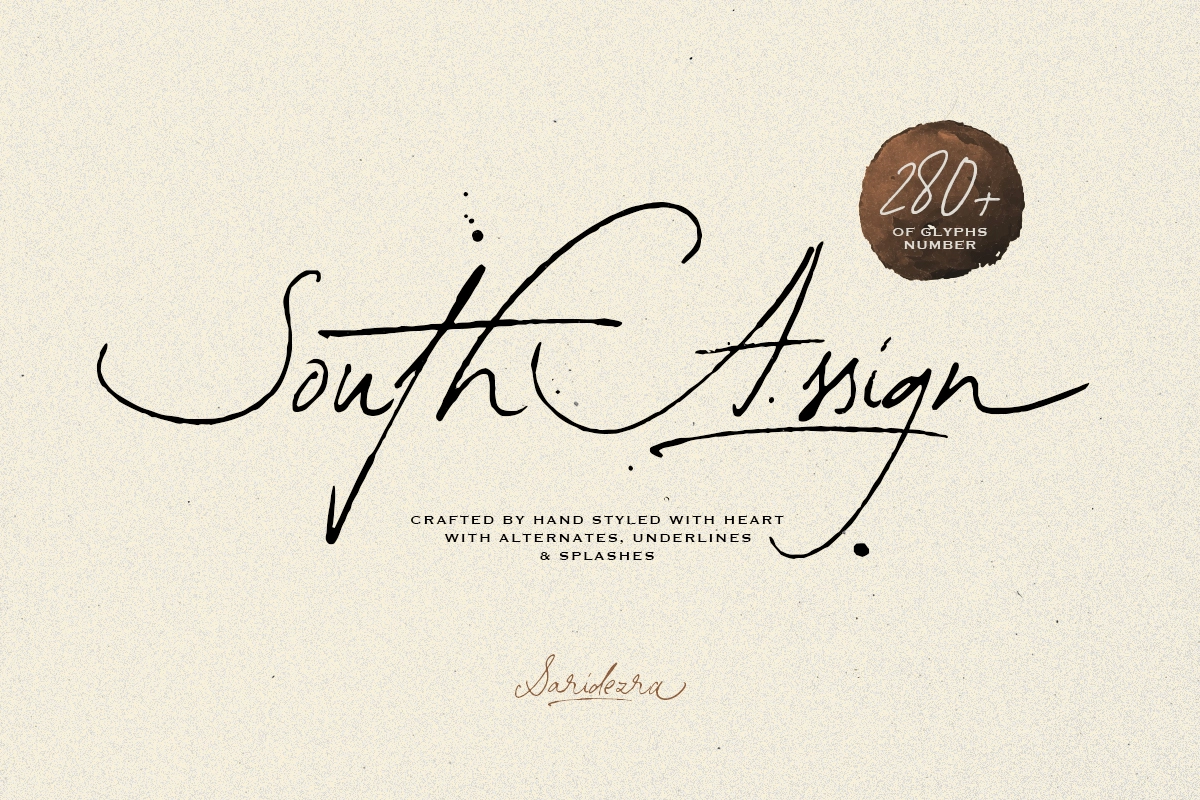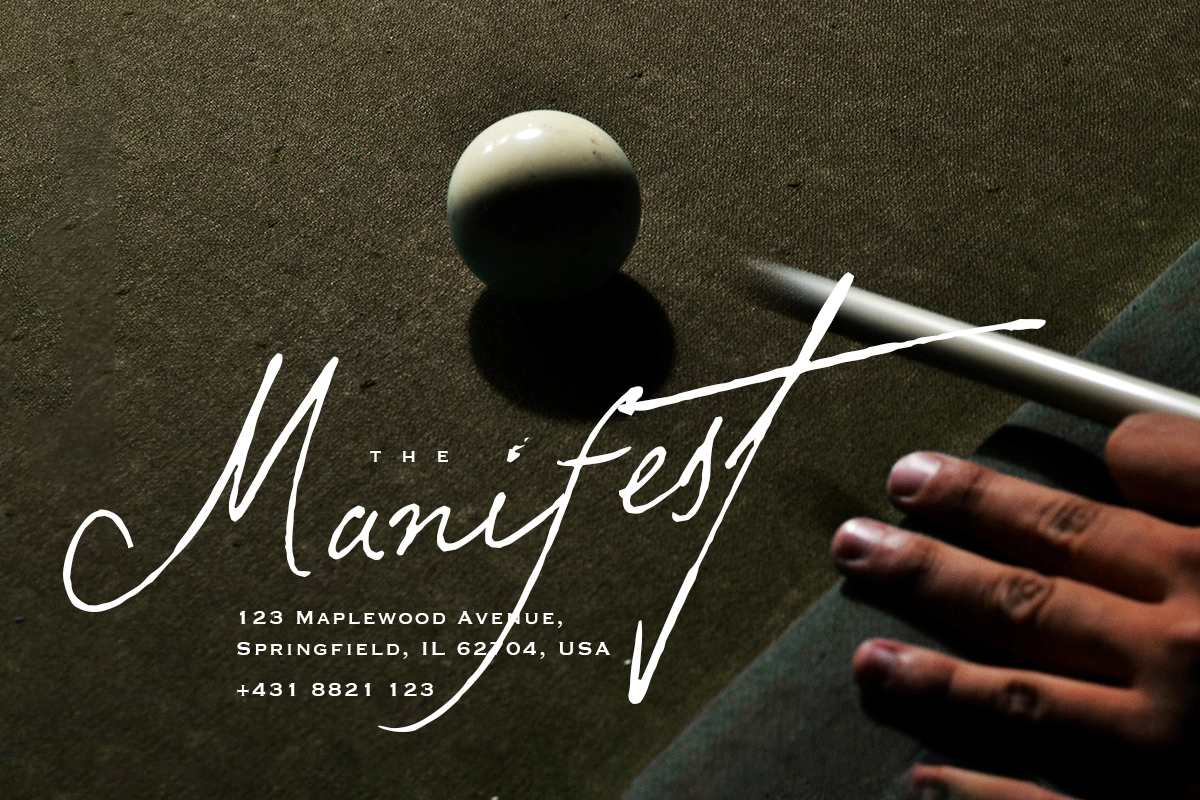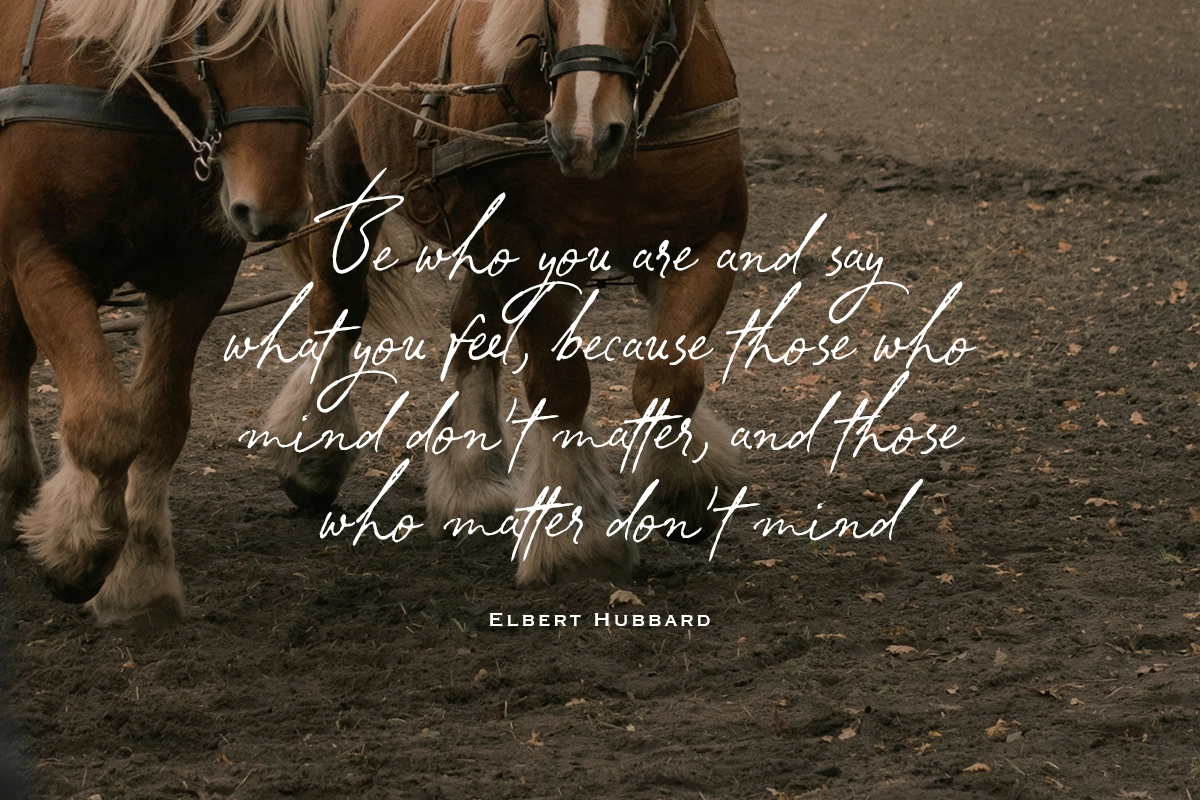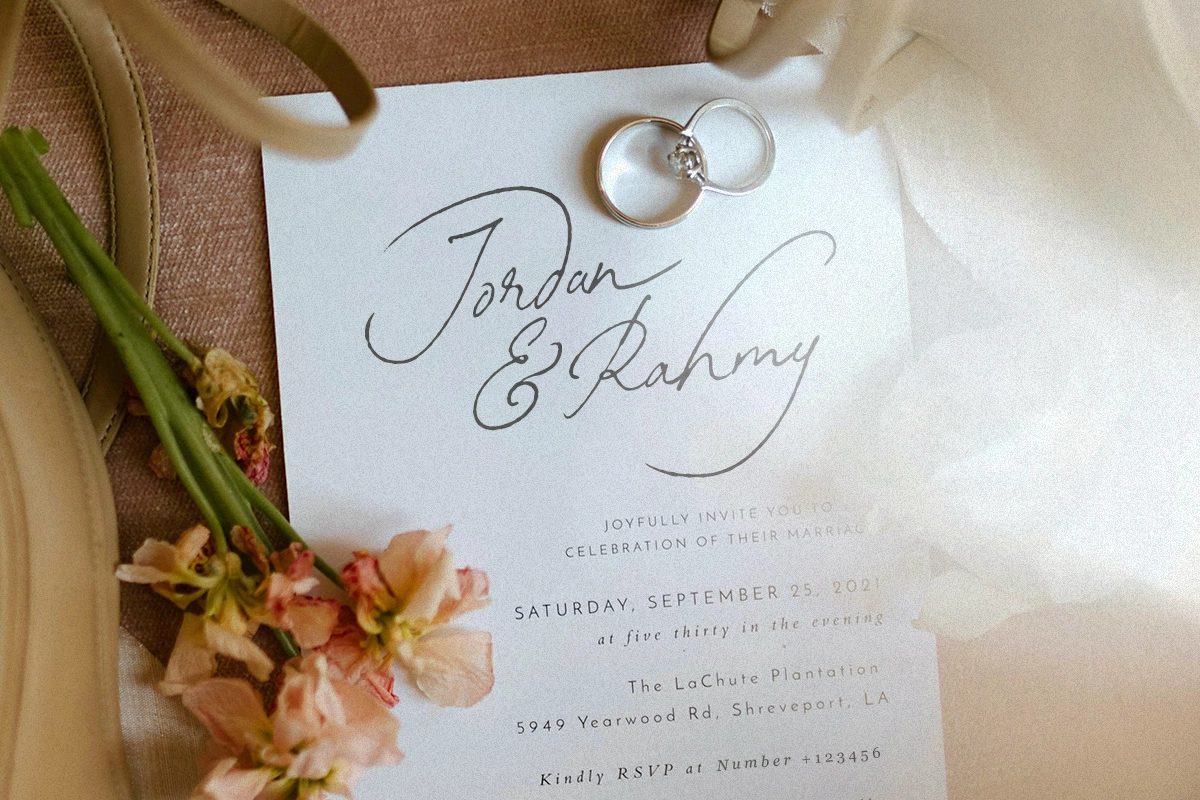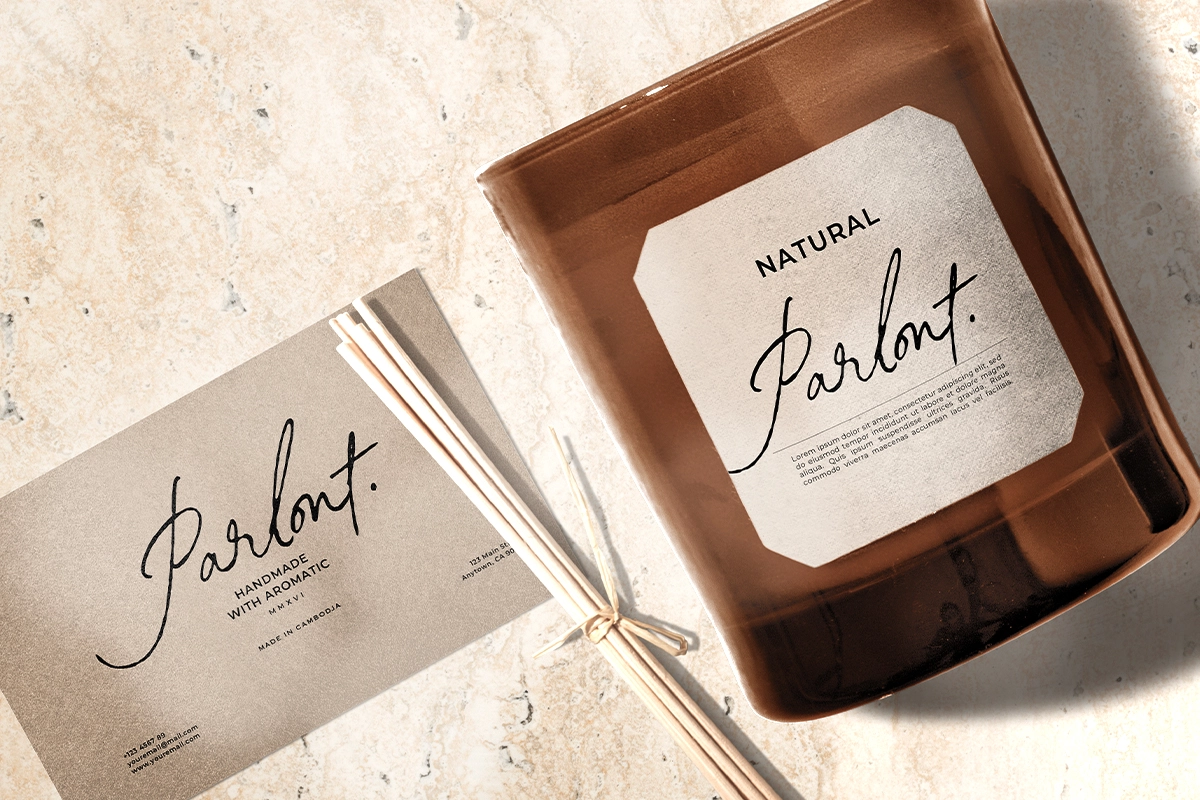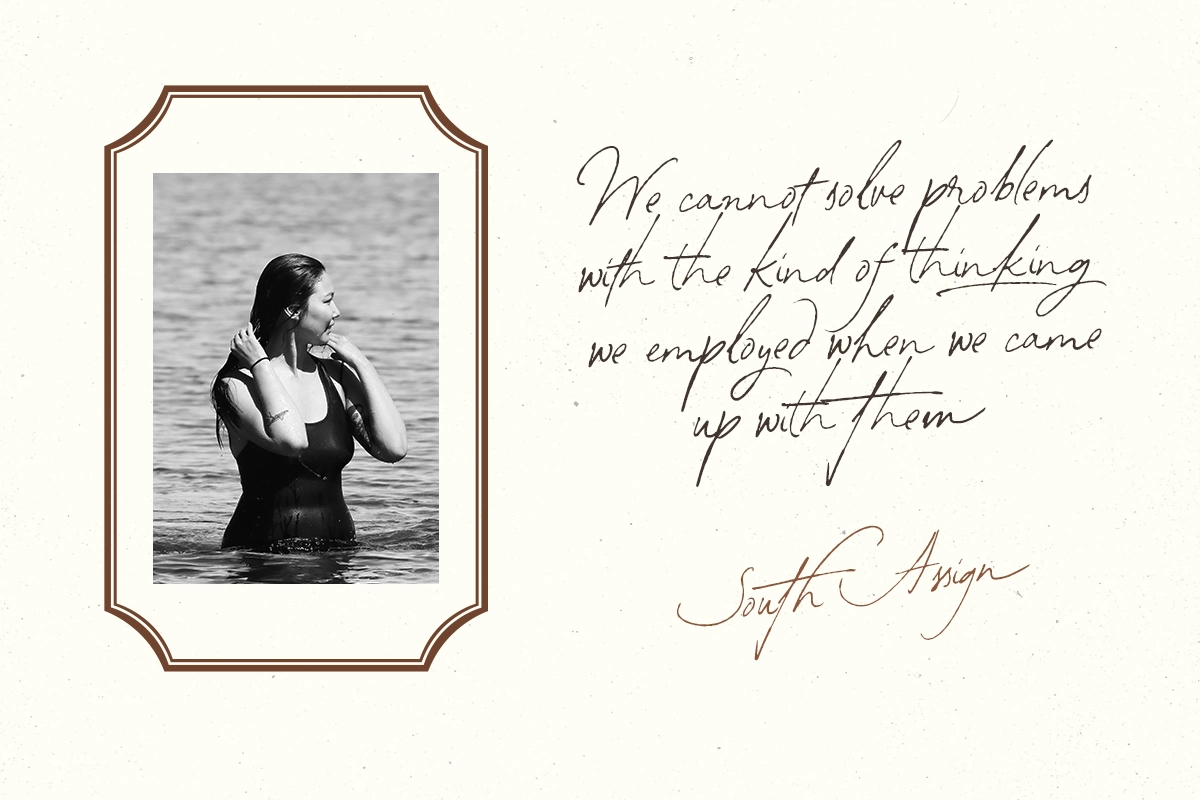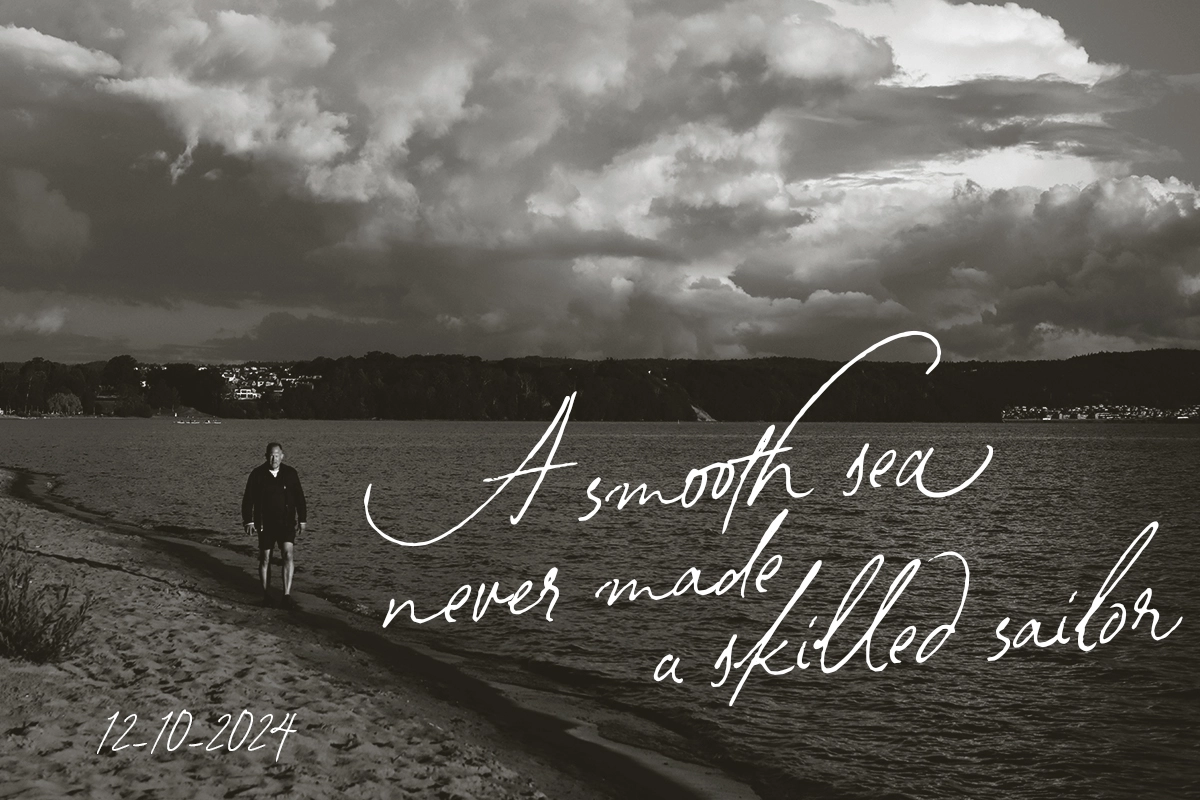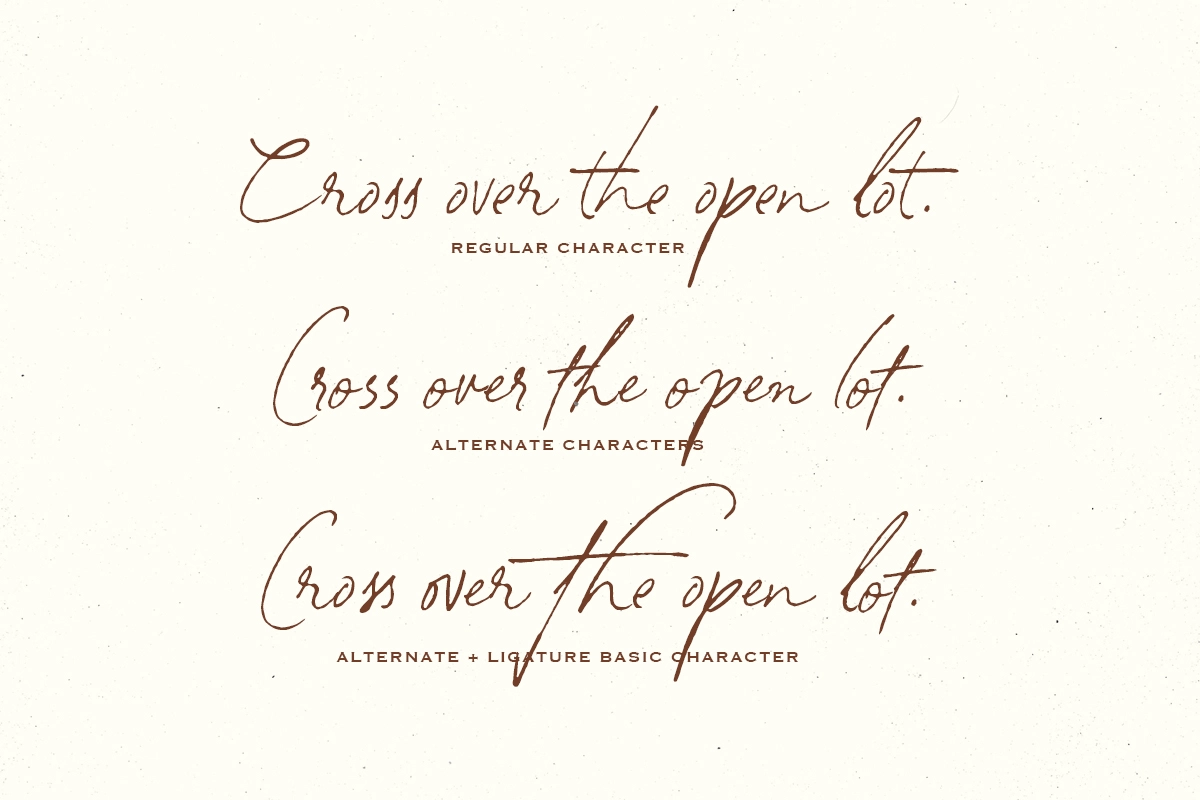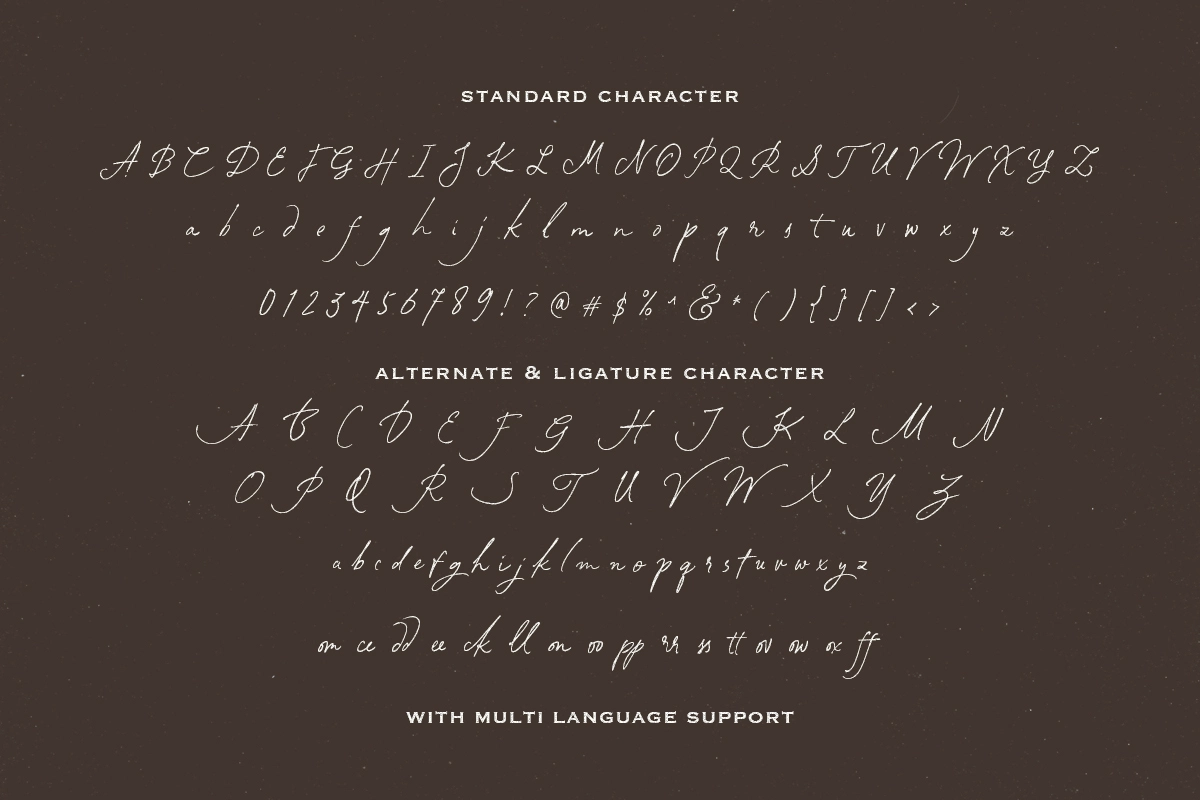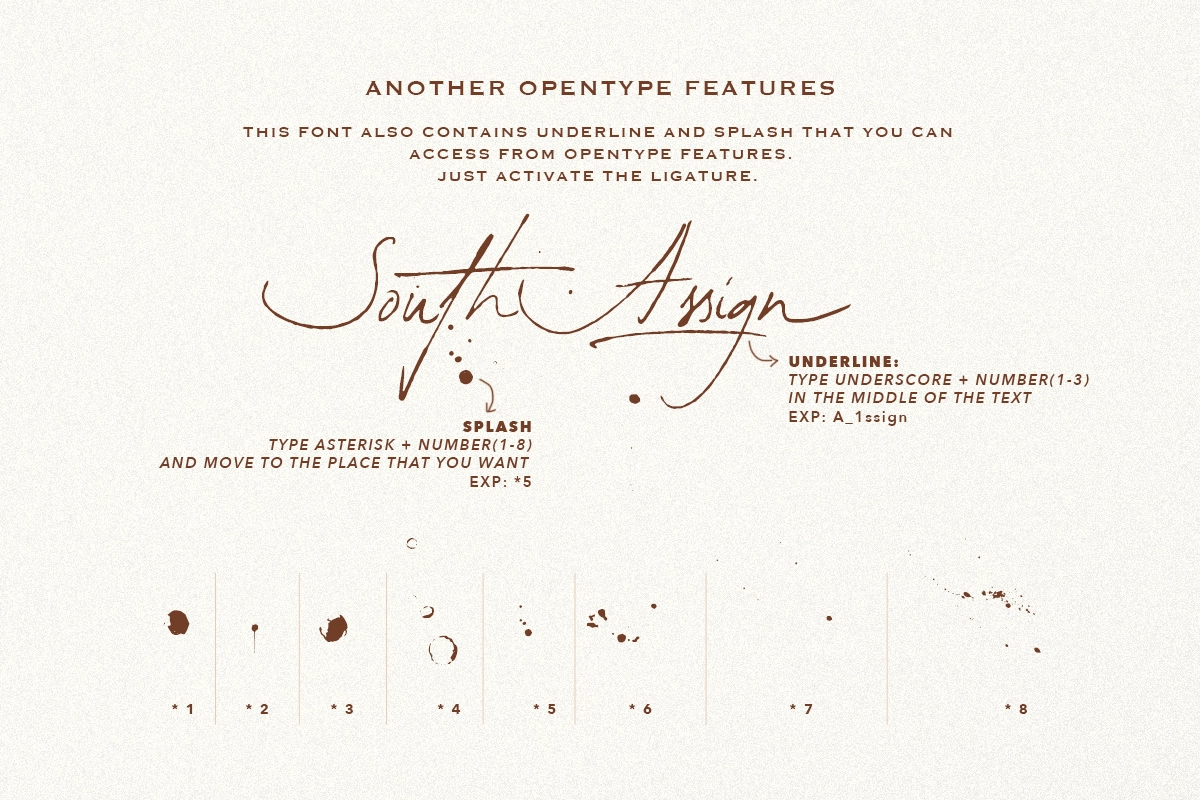
South Assign - Vintage Inspired Font
South Assign
A refined handwritten signature script created to feel natural, elegant, and personal. This font is perfect for logo signatures, branding, wedding stationery, photography watermarks, quotes, packaging, and social media visuals where you need a stylish “hand-signed” look.
It includes a rich set of alternates and ligatures so you can build unique word shapes, plus decorative underline swashes and ink splashes accessible via OpenType features for extra flair. With 280+ glyphs and multilingual support, it’s designed to stay versatile across different projects while keeping a classy, authentic handwritten character.
- Handwritten Signature Script Style
- 280+ Glyphs
- Alternates & Ligatures (OpenType)
- Underline Swashes & Ink Splashes (OpenType)
- Smooth, natural strokes for logos & branding